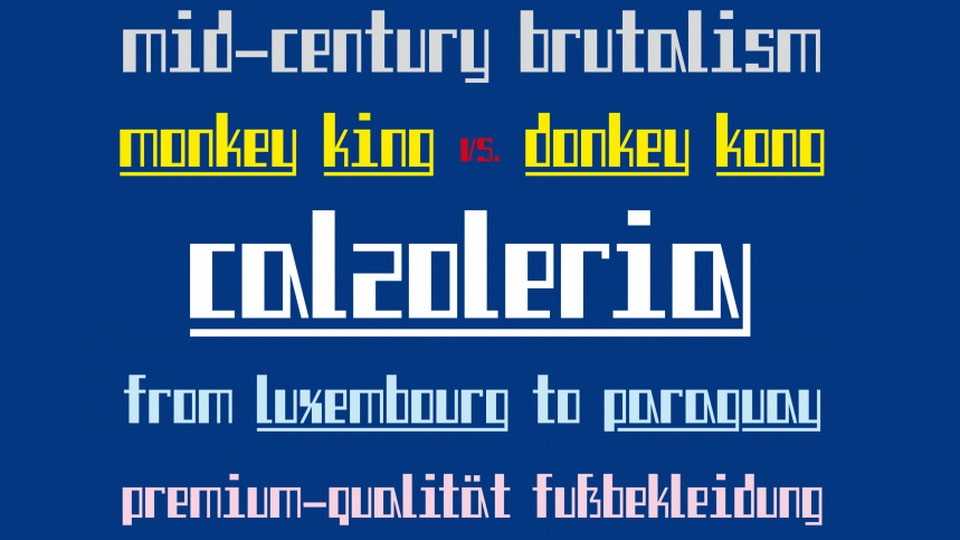
Download Calzoleria font, a vintage display typeface inspired by the shop signage. With its high-contrast, rectangular shapes, the font evokes a sense of timeless elegance and sophistication.
Designer: Riccardo Sartori